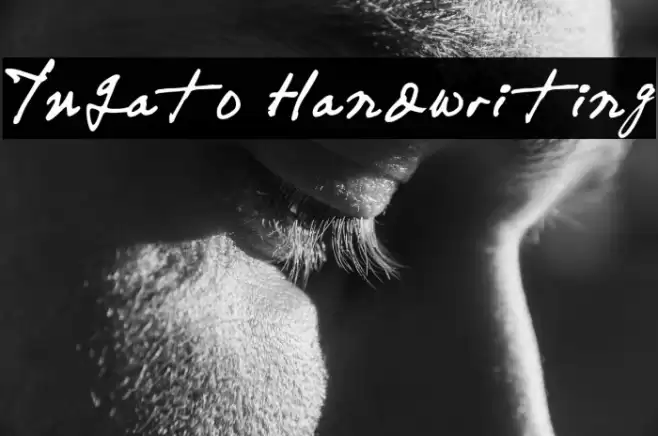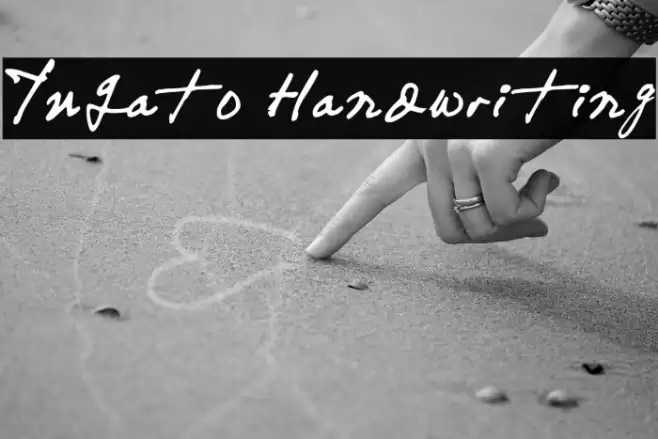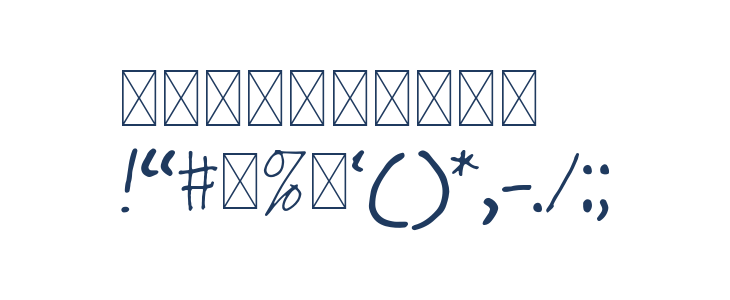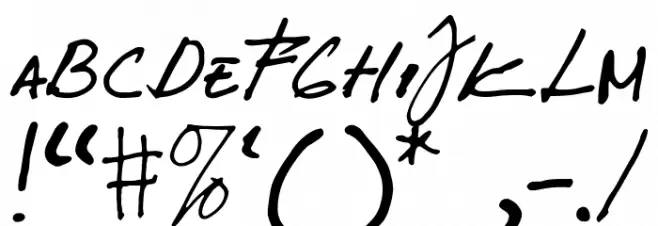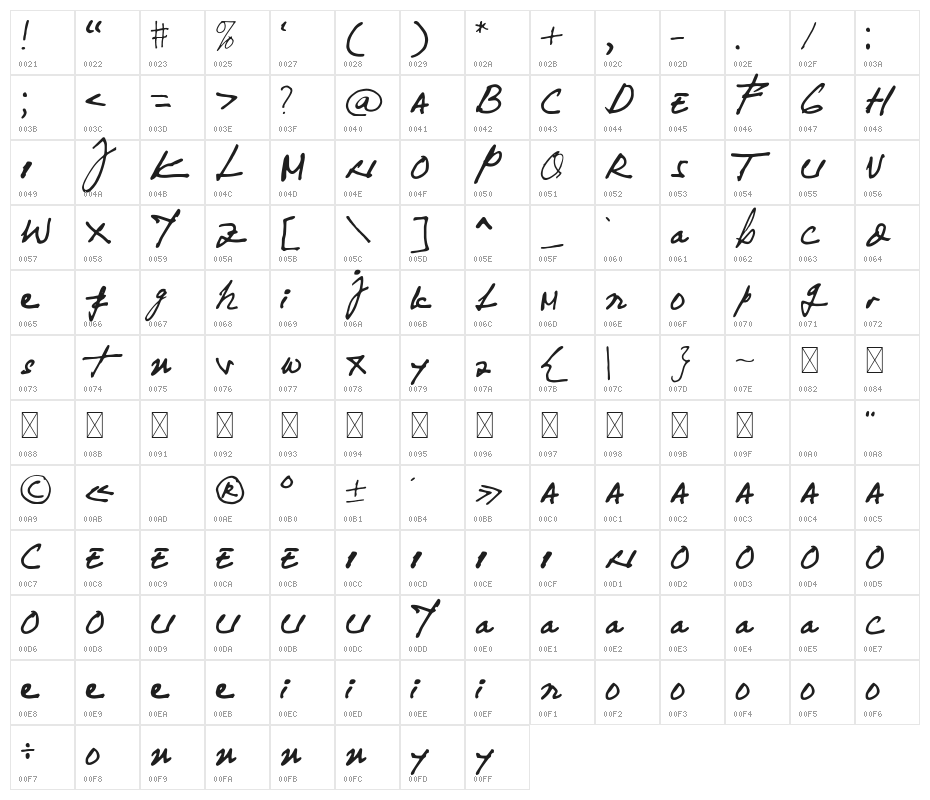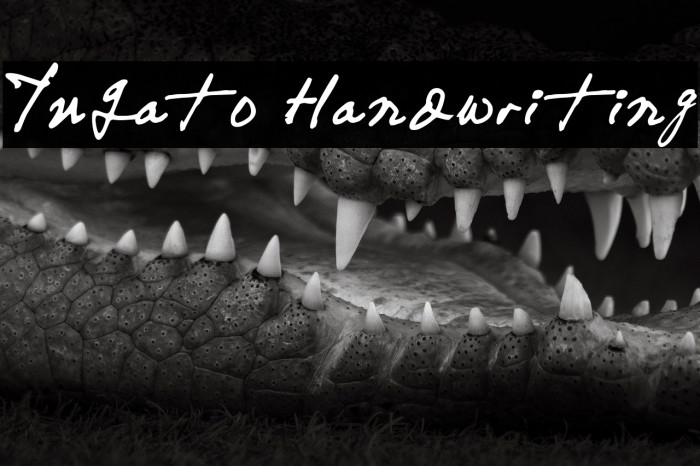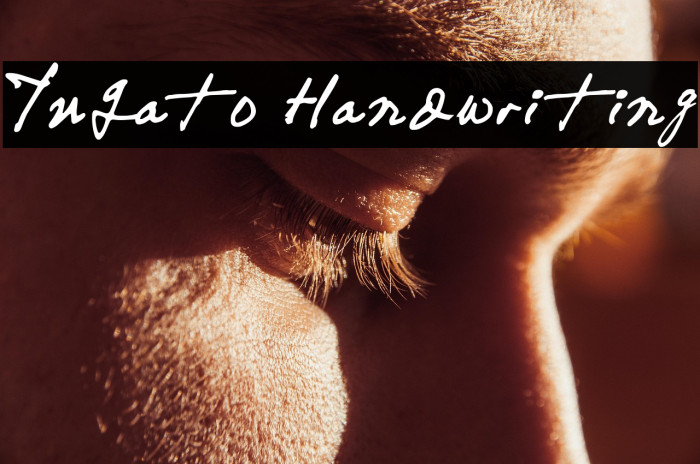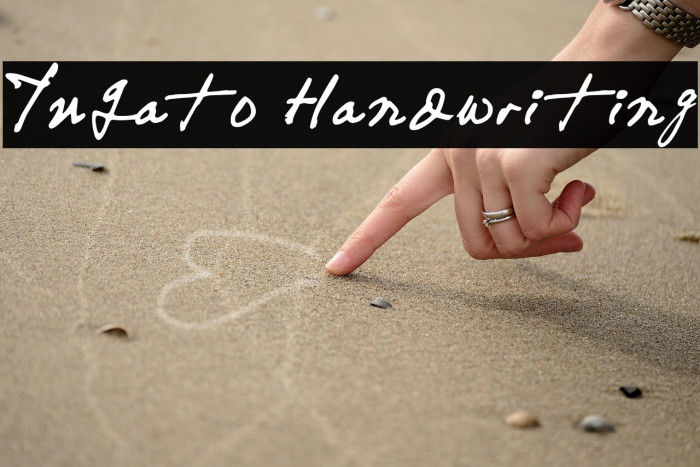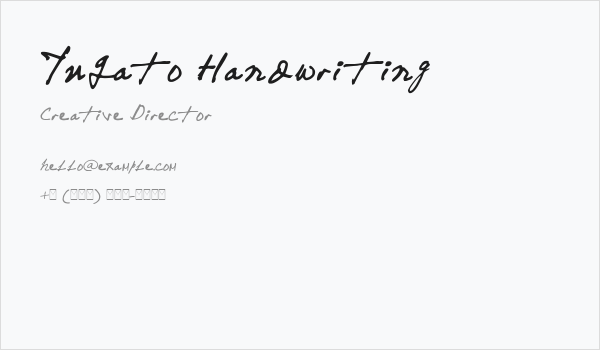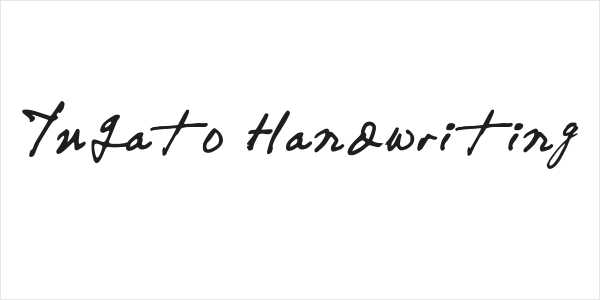
Yuqato Handwriting Font
Yuqato Handwriting Description
This font exudes a casual and personal touch, reminiscent of authentic handwriting. The characters are fluid and dynamic, with a natural flow that mimics the strokes of a pen. Each letter is distinct yet cohesive, maintaining a consistent style throughout. The uppercase and lowercase letters blend seamlessly, offering a versatile look suitable for various applications. The numbers and special characters maintain the same handwritten charm, ensuring uniformity across all text elements. This font is perfect for projects that require a personal, informal, or artistic feel.
A casual, handwritten font with a fluid and dynamic style from Regular fonts.
- Proposed Projects: Ideal for personal notes, invitations, greeting cards, and creative projects that require a personal touch.
- Overall Style: Casual, Artistic
- Use Case: Invitations, Greeting cards, Personal notes